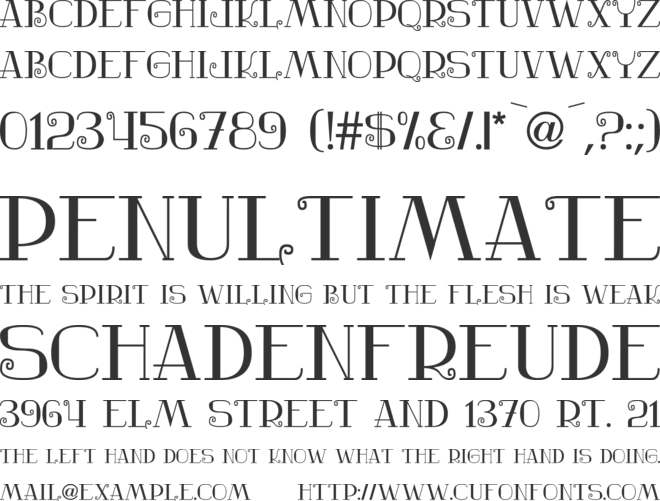
+23 Nostalgic Fonts Ideas. Free download of nostalgic return font. Font meme is a fonts & typography resource.
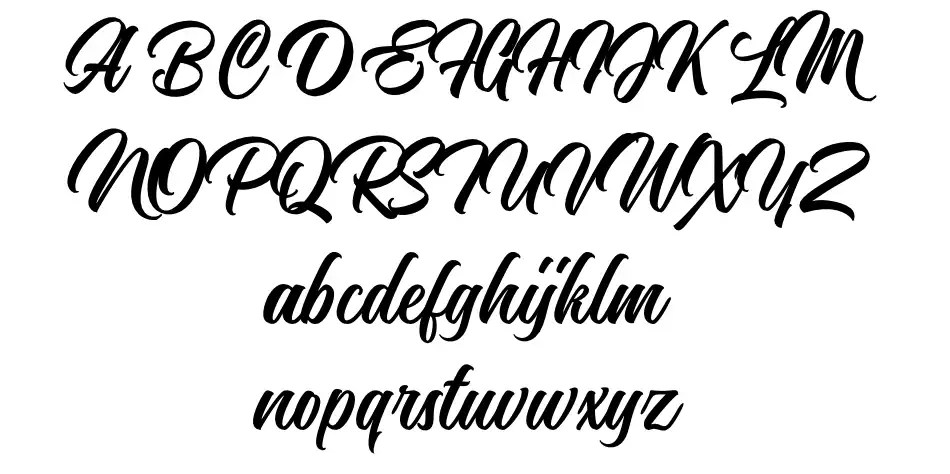
A b c d e f g h i j k l m n o p q r s t u v w x y z # 3d alien animal army stencil asian arabic bitmap pixel. The strong sans serifs will look good in any design to nail the old nostalgic feel. Designers usually use retro fonts that give off vintage, nostalgic vibe in case they want to give the artwork such a feeling.
Nostalgia font family was designed by paco gonzález, giuseppe salerno, and published by resistenza. Click to find the best 26 free fonts in the nostalgic style. Nostalgic script font family was designed by mauli zari and published by dhan studio.
Inspired By The 80’S Serif Font With Regular.
Nostalgic is a fancy, retro font designed by lorenzo simo hernandez. The style depends on the year you are going to. Every font is free to download!
Nostalgia Contains 3 Styles And Family Package Options.
Nostalgic memories font may 5, 2022 introducing nostalgic memories, a memorable retro serif font. Nostalgia font is a stylish and sophisticated modern serif typeface created by rsz type foundry with a retro feeling 3 fonts regular, effect and flowers. Inspired by the 80’s serif font with regular & italic version.
Free download of nostalgic return font. Nostalgic script is a modern brush font, organic, dynamic and energetic sytle.can used for various purposes. Designers usually use retro fonts that give off vintage, nostalgic vibe in case they want to give the artwork such a feeling.